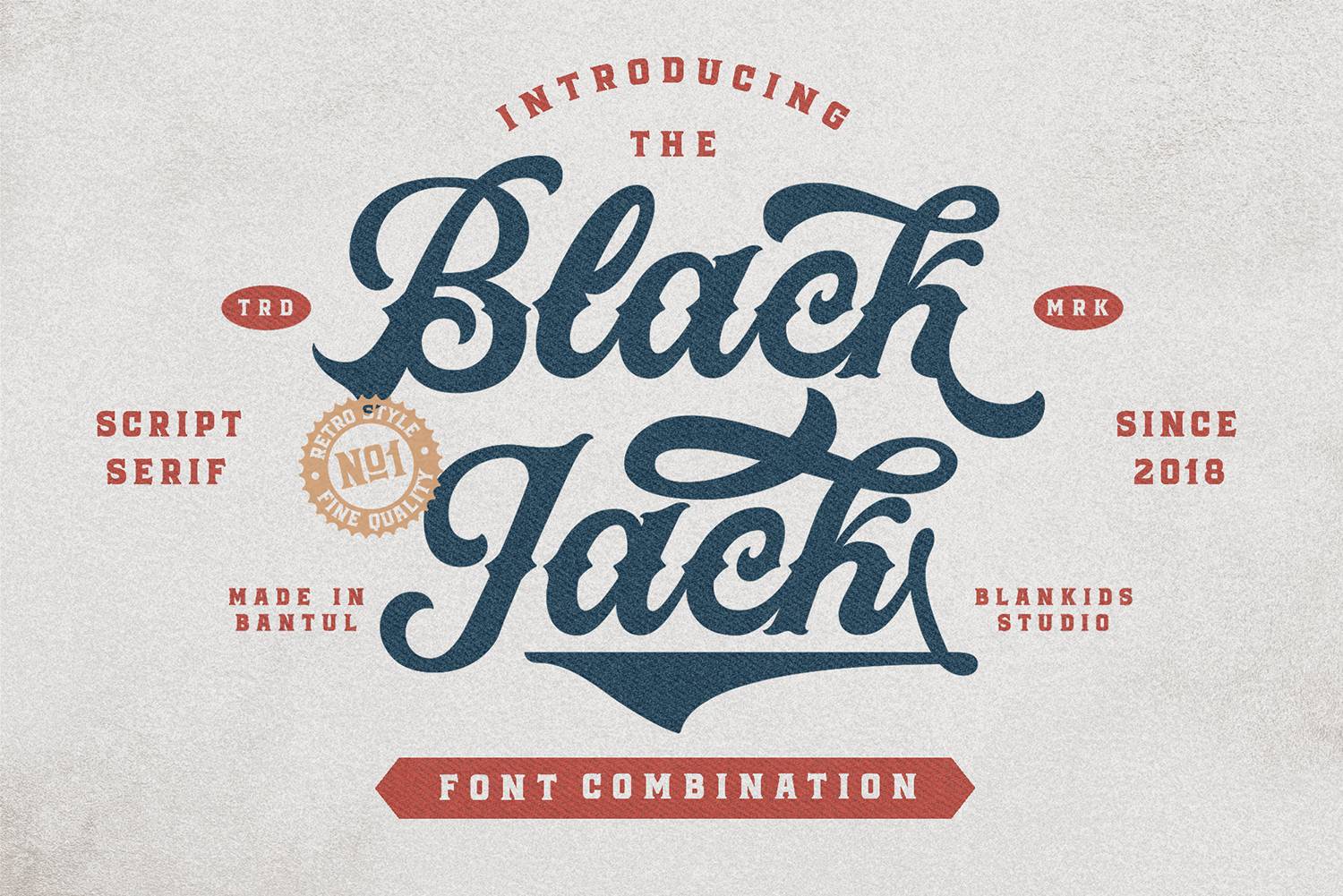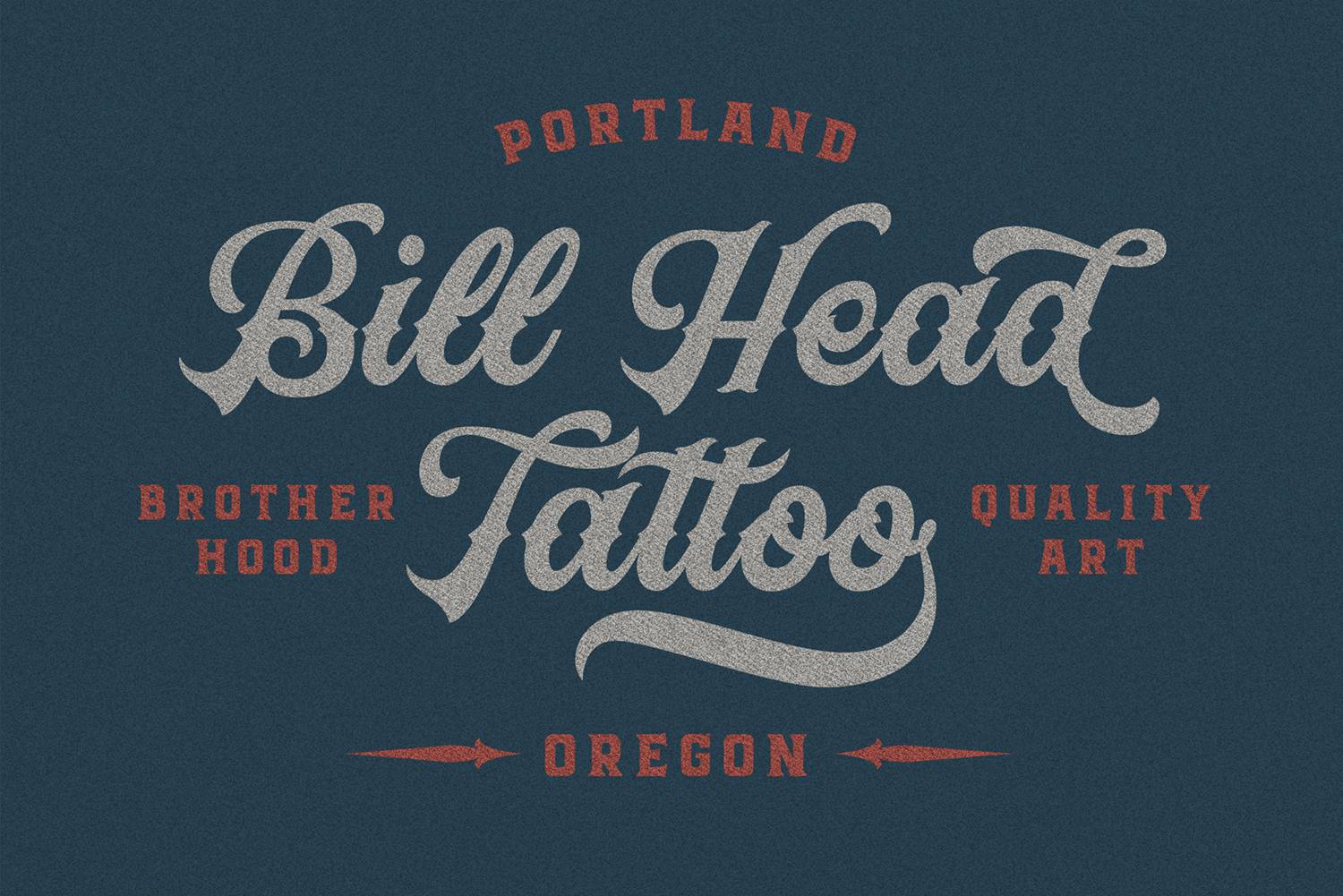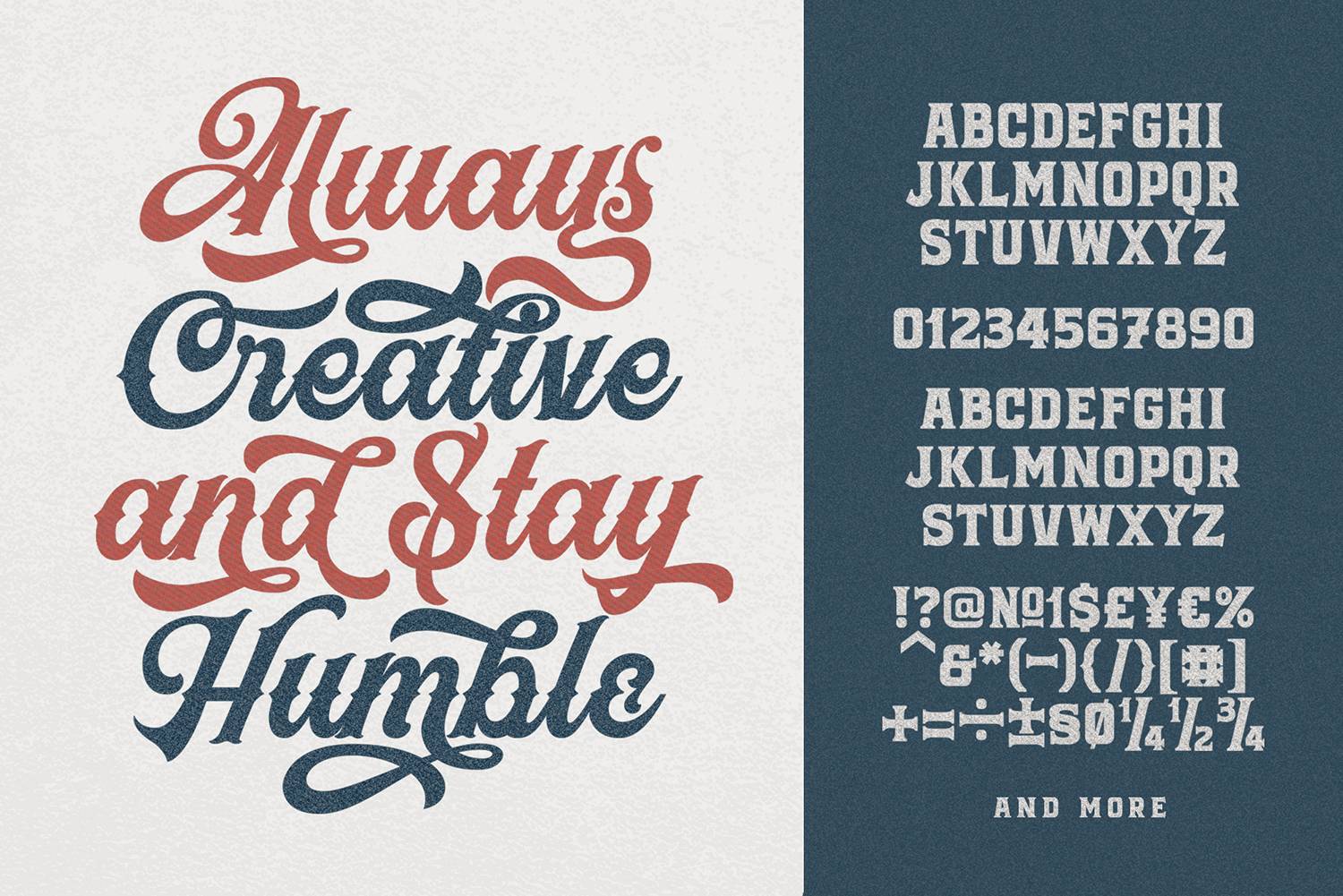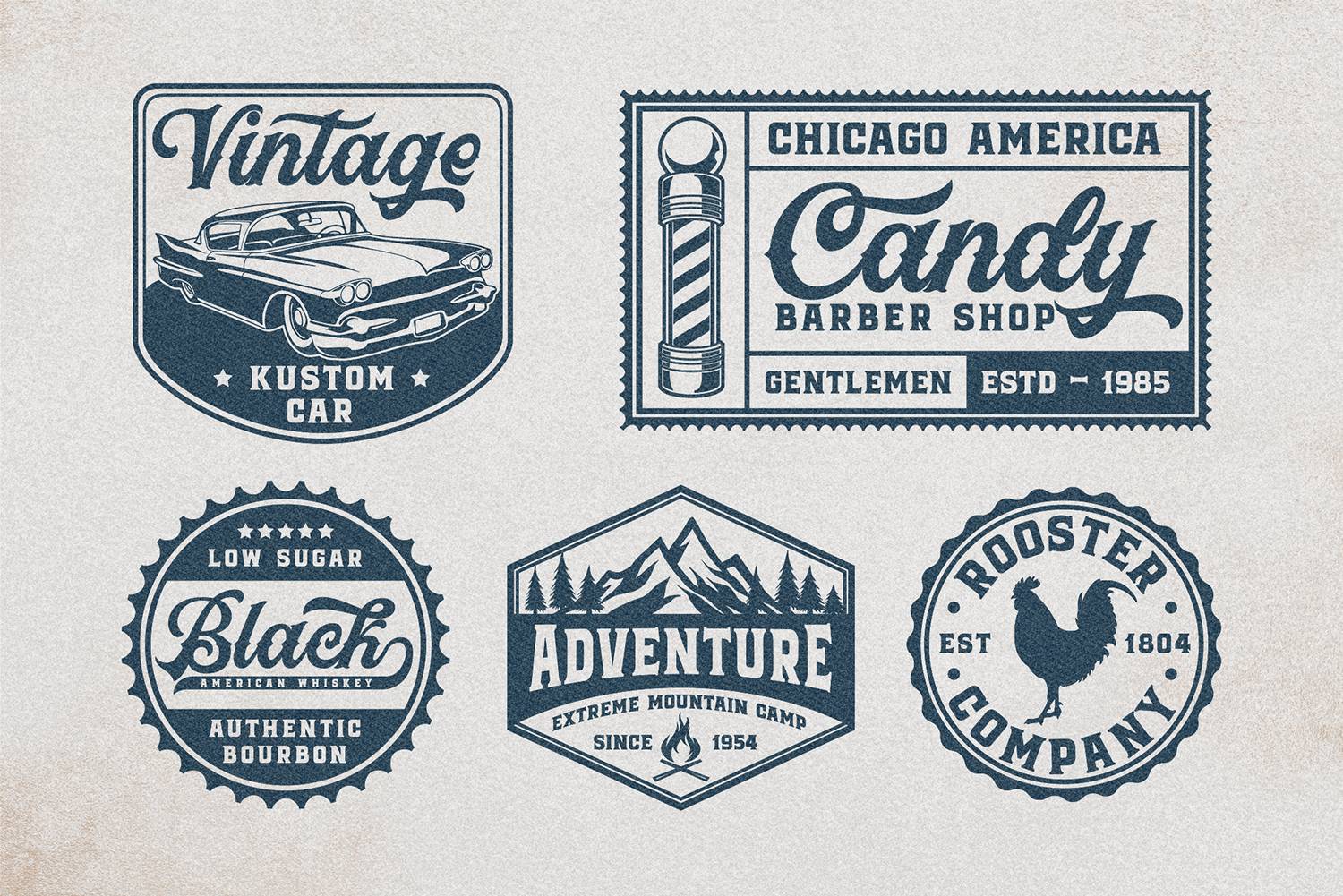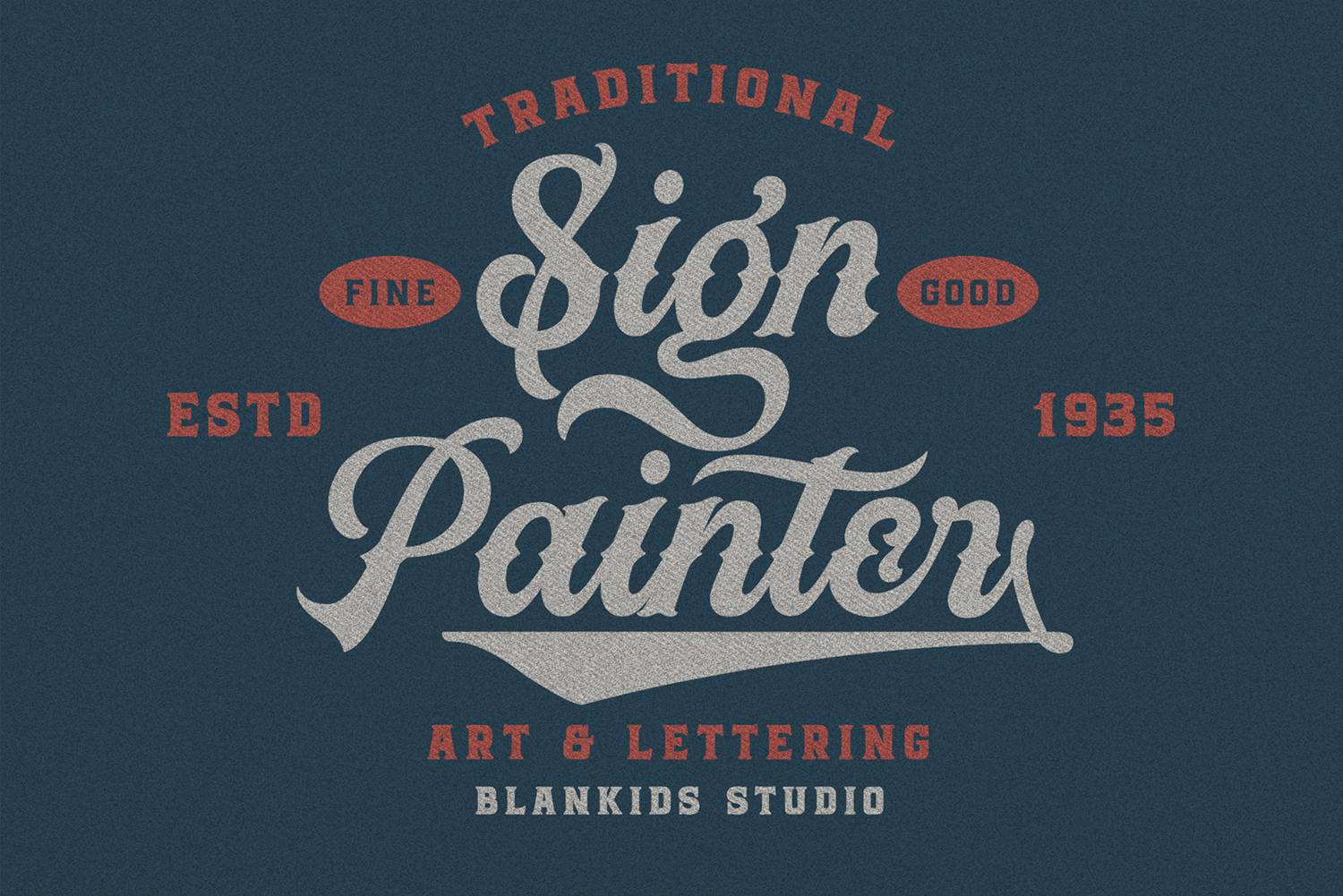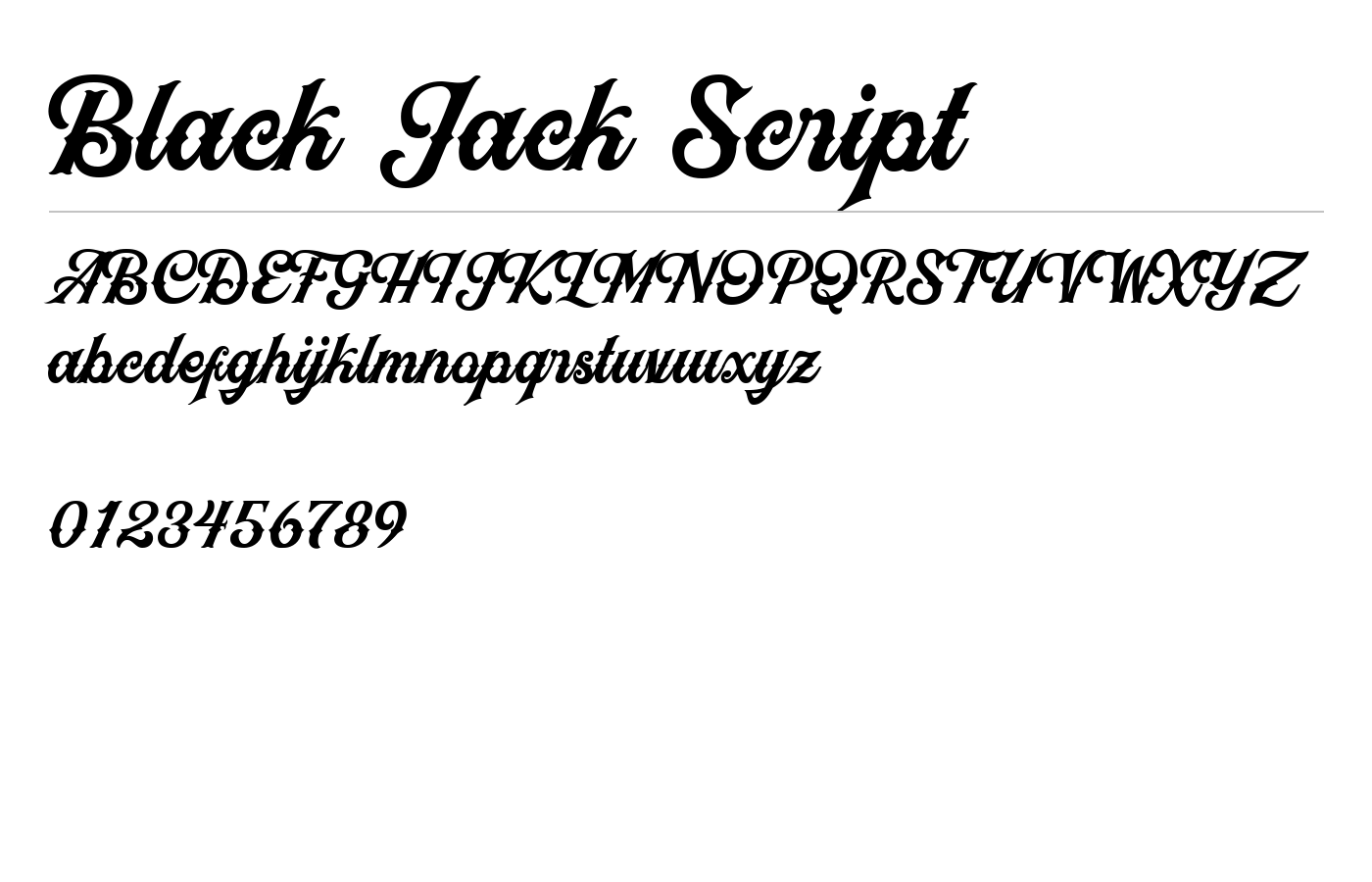
Black Jack is a bold, elegant script font with a vintage flair, featuring fluid, connected strokes that mimic classic handwriting. Its moderately high contrast and slightly condensed letterforms convey a sense of sophistication and charm, making it ideal for branding, invitations, and stylish headlines. This font works best where a personal yet polished touch is desired, combining readability with decorative flair.
Black Jack Font
About Black Jack Font
| Font family | Black Jack Font |